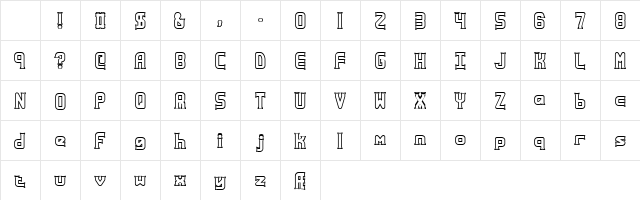
Ataxia Outline (BRK) is built around its visual character rather than neutral utility - its distinctive forms are designed to make an impression at display sizes.
Font Pairing: Pair with a clean neutral sans-serif for body copy to let Ataxia Outline (BRK)'s character lead without overwhelming the composition.
Pro Tip: Use Ataxia Outline (BRK) exclusively at display sizes - it was designed to be seen, not read at length. Let a neutral companion handle body copy.